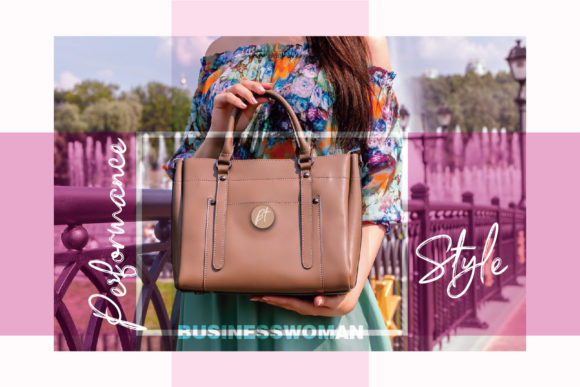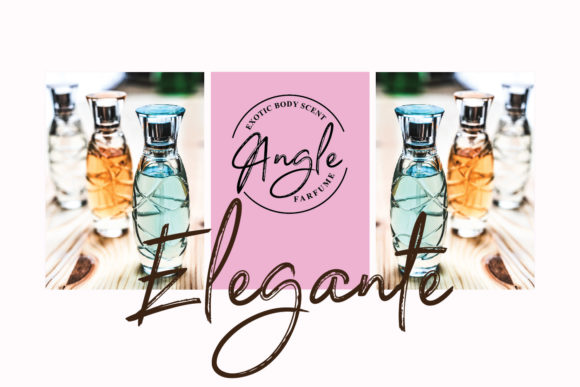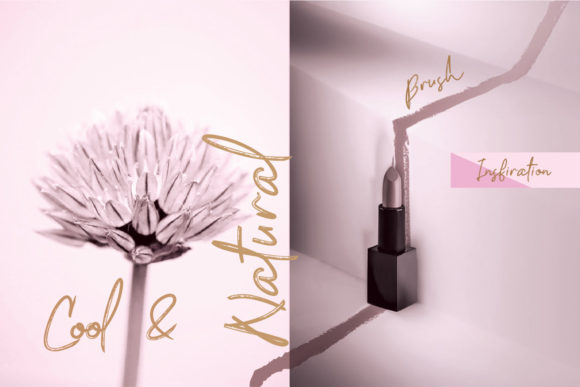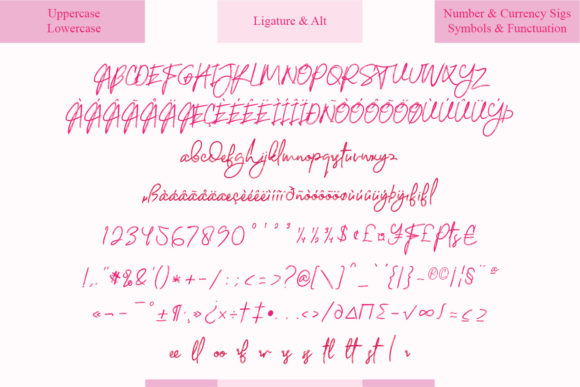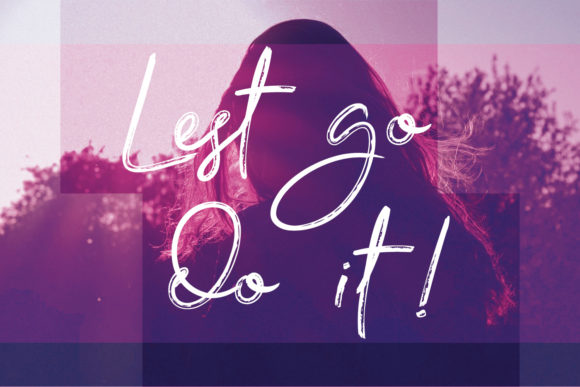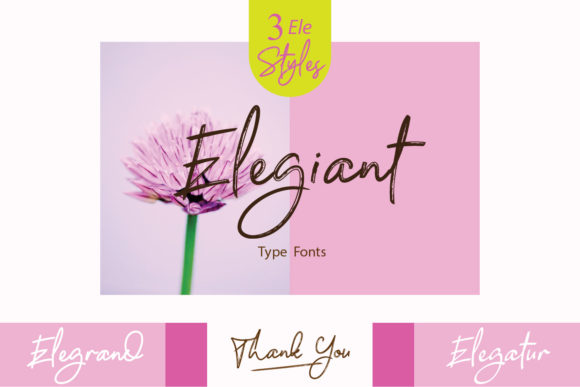
Elegiant Font
About Elegiant Font
Elegiant is a unique script full of authentic charm. It will add a personal touch to a wide range of crafting projects, ranging from headlines, greeting cards, and personal branding!